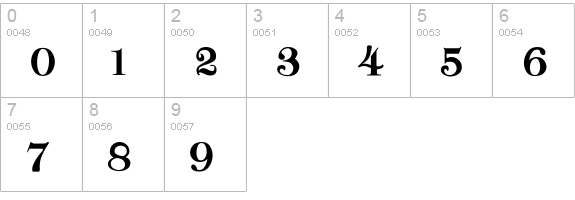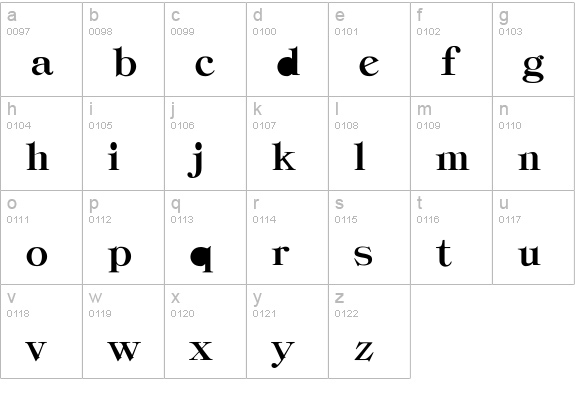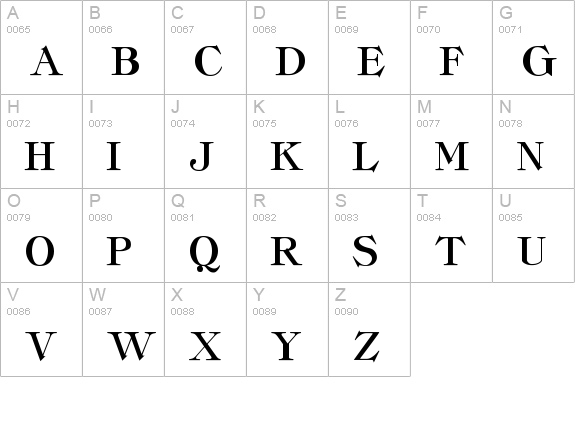
RSClassicaHeavy Font Details
RSClassicaHeavy is a bold and commanding typeface that exudes strength and elegance. With its thick, sturdy letterforms and classic design, this font is perfect for making a bold statement in your designs. The RSClassicaHeavy font is versatile and can be used for a variety of projects, from branding to editorial design. Its timeless appeal makes it a great choice for creating eye-catching headlines, logos, and posters. What's even better is that RSClassicaHeavy is available for free download at FontsMarket.com. This means you can easily access this high-quality font and use it in your projects without any cost. Don't miss out on the opportunity to enhance your designs with the striking RSClassicaHeavy font - download it today and make a lasting impression!